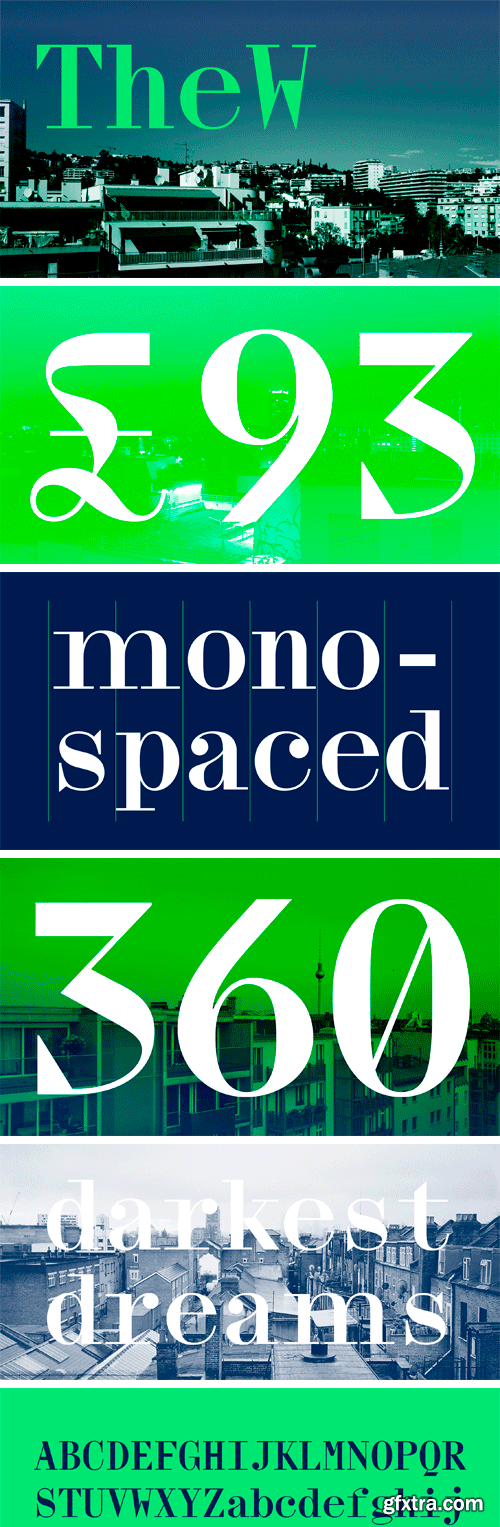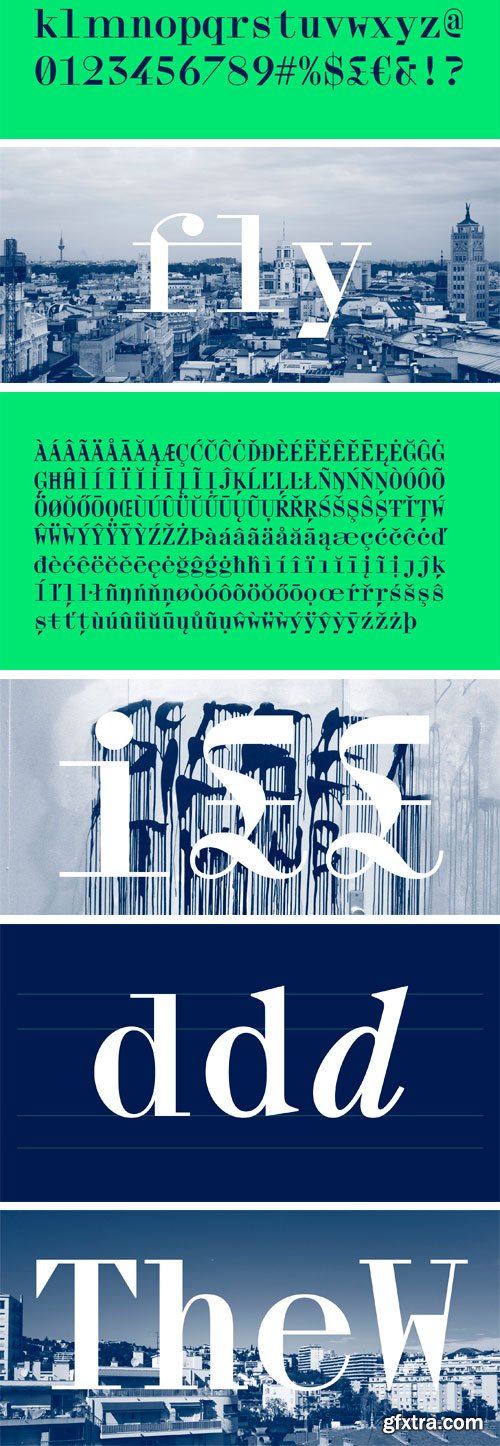
TheW Clan Font
TheW Clan RZA is the first style in an upcoming series of various TheW Clan (Headline fonts). This monospaced font is accompanied by TheW NYC (Regular and Italic), a slightly tamed-down pair with standard proportional spacing for greater readability.